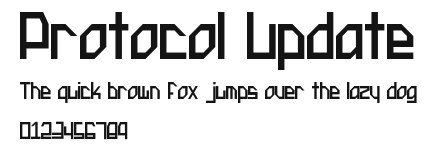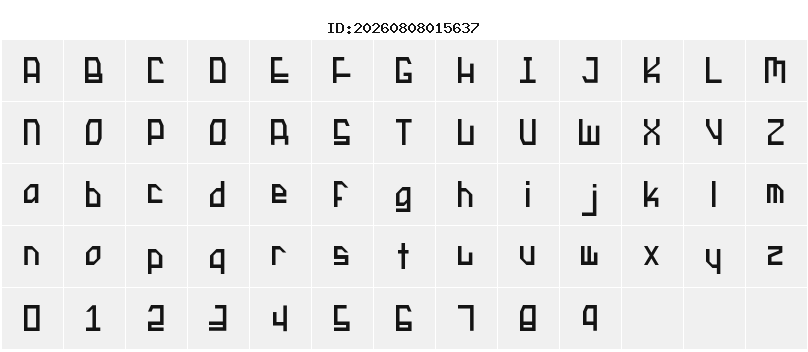
About Protocol Update.otf
Protocol Update.otf is a modern, elegant sans-serif font designed for ultimate readability and visual harmony. Perfect for branding, headlines, web design, and print materials.